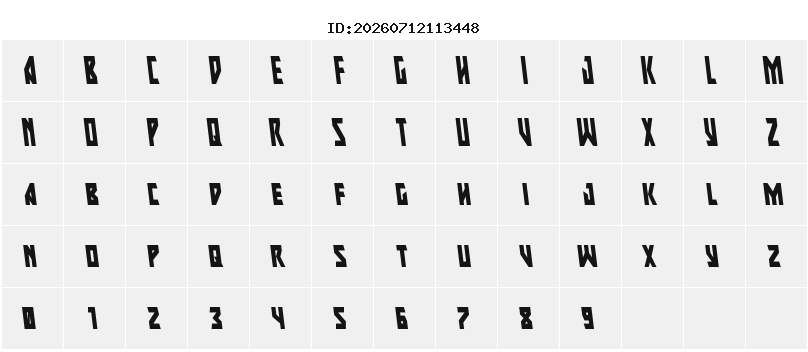
Major Force Condensed Leftalic Preview
• Font Name: Major Force Condensed Leftalic
• Font Style: Condensed Italic
• Full Font Name: Major Force Condensed Leftalic
About Major Force Condensed Leftalic.ttf
Major Force Condensed Leftalic.ttf is a modern, elegant sans-serif font designed for ultimate readability and visual harmony. Perfect for branding, headlines, web design, and print materials.